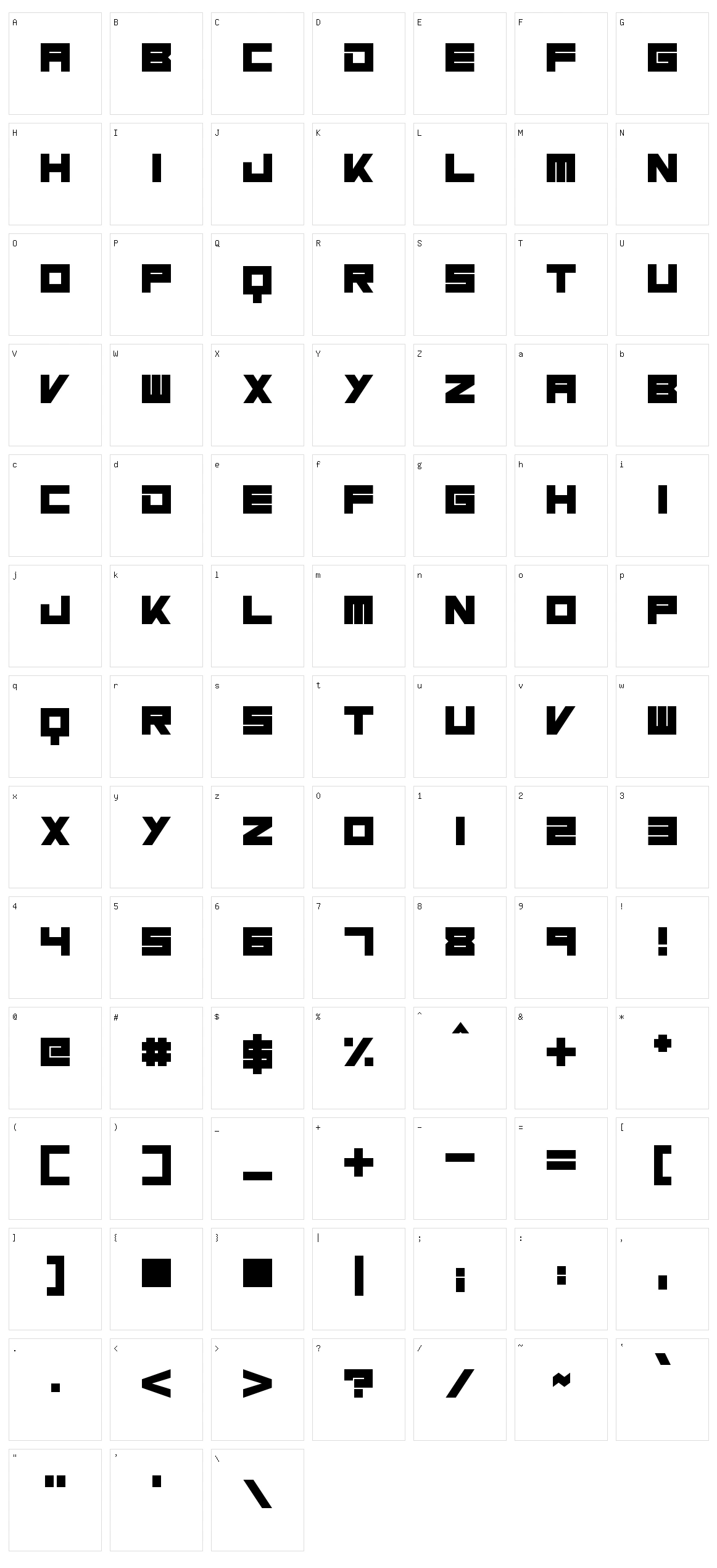
The free font Massive Bassline is carefully designed by Hawtpixel, showcasing a thoughtful balance of creativity and usability and falls under the Square font style. When you download the ZIP file, it contains only 13.25 KB of font files, making it lightweight and quick to download. Please review the license details below to understand permitted usage and distribution rights. If license information is not available, we recommend using this font for personal projects only or contacting the author directly for commercial usage permissions.